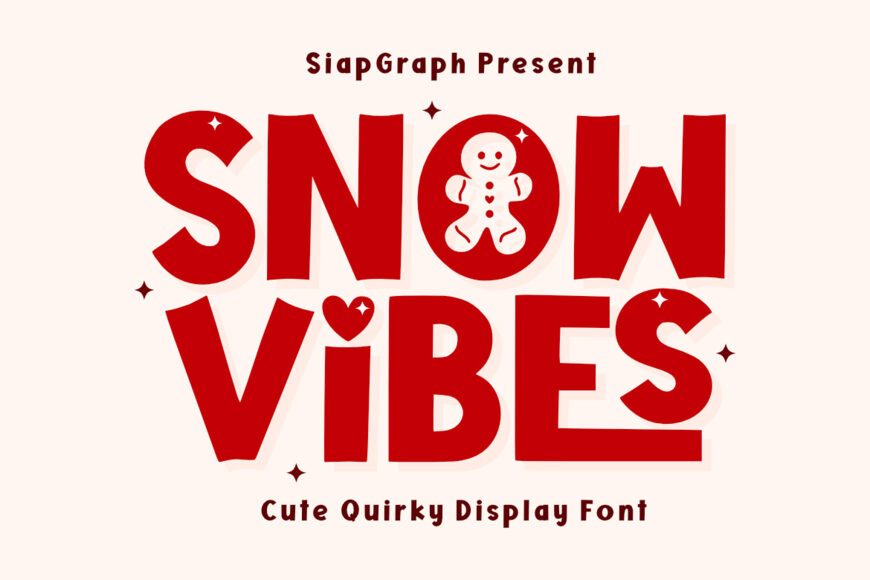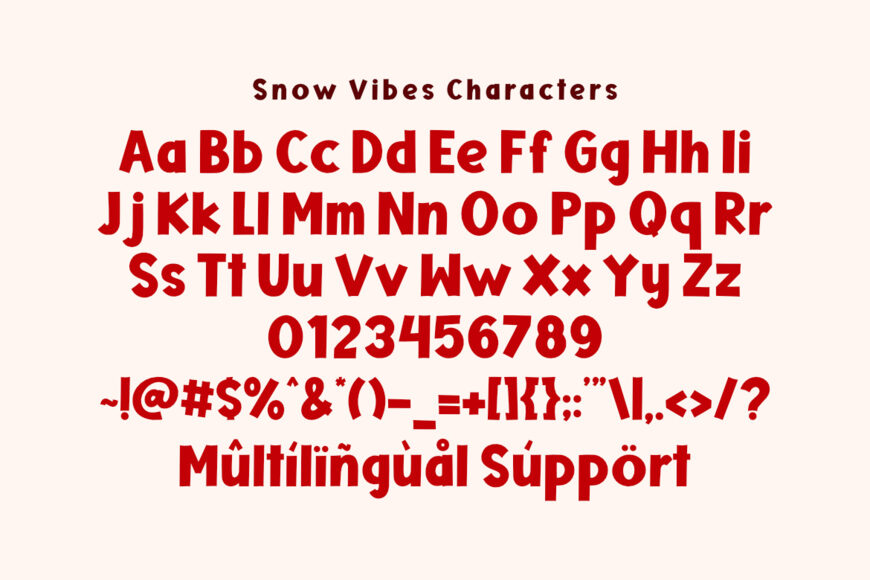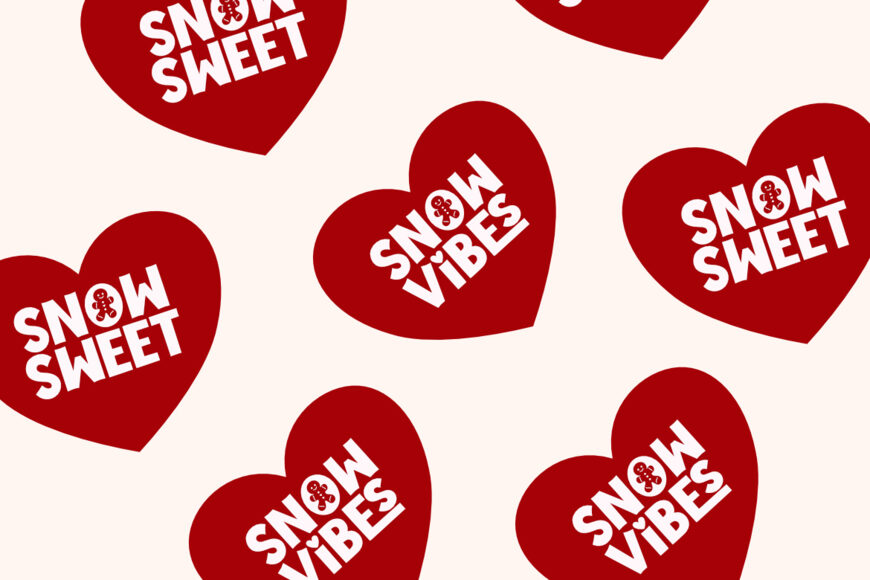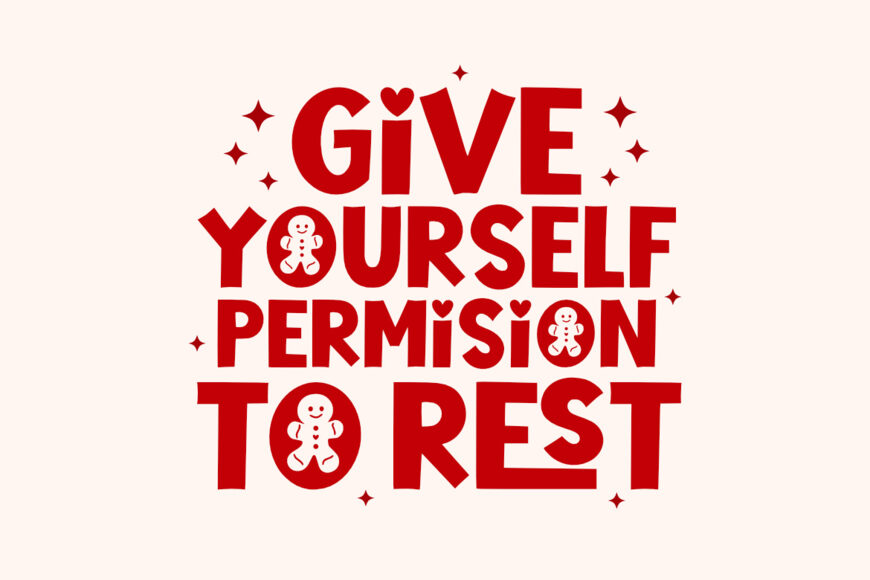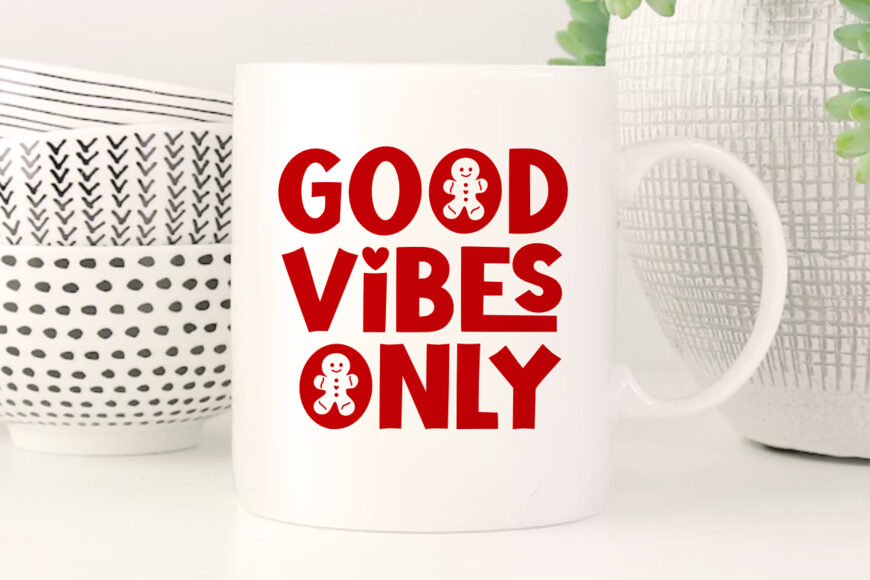
Snow Vibes Font
Snow Vibes is a charming and festive Cute Quirky Display Font specially crafted to bring a warm, cheerful, and magical holiday vibe to your creative projects. Featuring bold, chunky, and unique letterforms integrated with delightful seasonal accents like a cute gingerbread man and lovely heart details, this typeface is designed to make your projects stand out with a playful personality.
Perfect for: creating high-impact SVG cut files, Christmas party invitations, winter holiday crafts, festive family t-shirts, custom tote bags, holiday mugs, cute stickers, and cozy social media graphics.